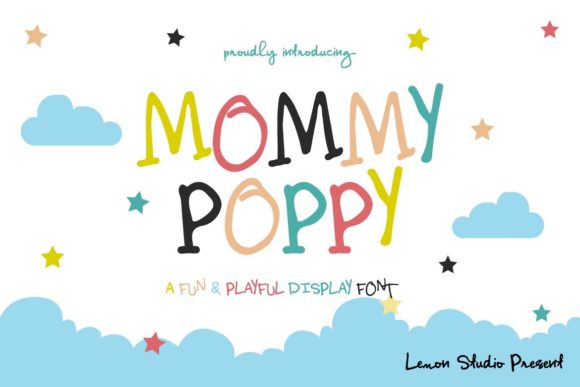
Introducing Mommy Poppy Font, the ultimate font for all your kids' book needs! With its playful and fun handwritten style, this font is sure to captivate the hearts of both children and adults alike. Created by the talented WildaKhairunnisa, Mommy Poppy is the perfect choice for adding a touch of whimsy and charm to any design project.
What sets Mommy Poppy apart is its unique and funny style that instantly grabs attention. This eye-catching children's font is inspired by cute little ones and their colorful world, making it the ideal companion for any creative endeavor. Whether you're designing apparel, creating a brand identity, crafting striking headings for a poster, or simply looking to add a touch of cuteness to your quotes, Mommy Poppy has got you covered.
With Mommy Poppy, your designs will come to life with its lively and energetic strokes. Each letter is carefully crafted to bring out the playful essence, making it the perfect choice for children's books, illustrations, and any project that requires a touch of youthful exuberance. Your audience will be instantly drawn to the cheerful and vibrant vibe of this font, creating a memorable and engaging experience.
In a world where first impressions matter, Mommy Poppy Font is your secret weapon to leave a lasting impact. Its versatility allows it to seamlessly fit into any design style, whether it's modern, playful, or whimsical. So why settle for ordinary fonts when you can have Mommy Poppy, the font that adds that extra spark of magic to your creations?